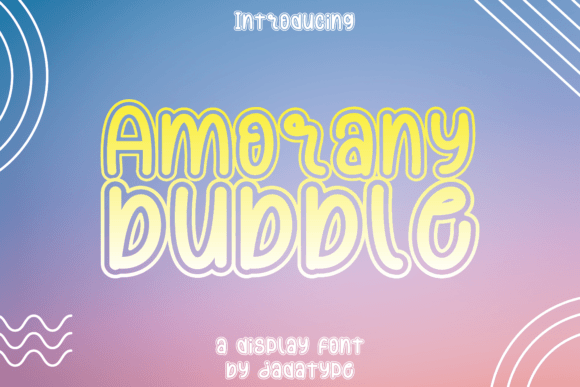
Introducing Amorany Bubble Font: The Playful Display Font You Need
Are you tired of using the same old fonts for your designs, social media posts, and crafts? Look no further than Amorany Bubble Font, a display font that is sure to add a playful touch to your projects. With its fun, bouncy, bold, and exciting vibe, Amorany Bubble is the perfect choice for anyone looking to add some personality to their work.
What is Amorany Bubble Font?
Amorany Bubble Font is a display font that is designed to make a statement. Its playful and whimsical design makes it perfect for use in a variety of projects, from designs and social media posts to crafts and writing. The font is characterized by its bold and bubbly letters, which are sure to grab the attention of your audience.
Key Features of Amorany Bubble Font
So, what makes Amorany Bubble Font so special? Here are just a few of its key features:
- Playful design: Amorany Bubble Font has a fun and playful design that is sure to add a touch of whimsy to your projects.
- Bold and exciting: The font is bold and exciting, making it perfect for use in designs and projects where you want to make a statement.
- Versatile: Amorany Bubble Font can be used in a variety of projects, from designs and social media posts to crafts and writing.
- Easy to read: Despite its playful design, Amorany Bubble Font is easy to read, making it perfect for use in projects where you need to communicate a message.
Uses for Amorany Bubble Font
So, what can you use Amorany Bubble Font for? The possibilities are endless! Here are just a few ideas to get you started:
- Designs: Use Amorany Bubble Font to add a playful touch to your designs, from posters and flyers to brochures and business cards.
- Social media: Add some personality to your social media posts with Amorany Bubble Font, perfect for use in Instagram captions, Facebook posts, and more.
- Crafts: Use Amorany Bubble Font to add a personal touch to your crafts, from scrapbooking and card making to DIY projects and more.
- Writing: Add some fun and personality to your writing with Amorany Bubble Font, perfect for use in journals, diaries, and more.
Why Choose Amorany Bubble Font?
So, why should you choose Amorany Bubble Font for your projects? Here are just a few reasons:
- Unique design: Amorany Bubble Font has a unique and playful design that is sure to set your projects apart from the rest.
- Versatile: Amorany Bubble Font can be used in a variety of projects, making it a great addition to your font library.
- Fun and engaging: The font is fun and engaging, making it perfect for use in projects where you want to add some personality.
In conclusion, Amorany Bubble Font is a playful display font that is sure to add a touch of fun and personality to your projects. With its bold and exciting design, versatile uses, and easy-to-use format, Amorany Bubble Font is the perfect choice for designers, crafters, and writers alike. So why wait? Download Amorany Bubble Font today and start adding some playfulness to your projects!
Tips and Tricks for Using Amorany Bubble Font
Here are a few tips and tricks for getting the most out of Amorany Bubble Font:
- Use it sparingly: While Amorany Bubble Font is fun and playful, it can be overwhelming if used too much. Use it sparingly to add a touch of personality to your projects.
- Pair it with other fonts: Amorany Bubble Font pairs well with other fonts, such as sans serif fonts and script fonts. Experiment with different pairings to find the one that works best for your project.
- Experiment with colors: Amorany Bubble Font looks great in a variety of colors, from bright and bold to pastel and soft. Experiment with different colors to find the one that works best for your project.